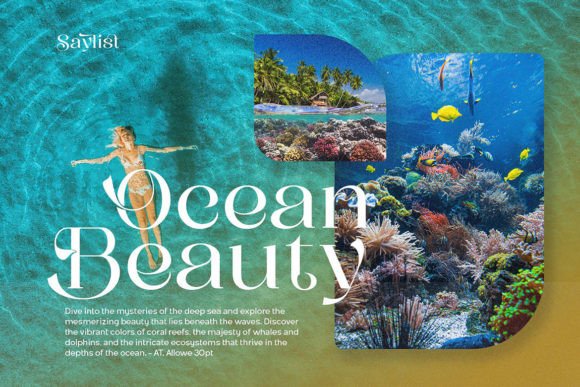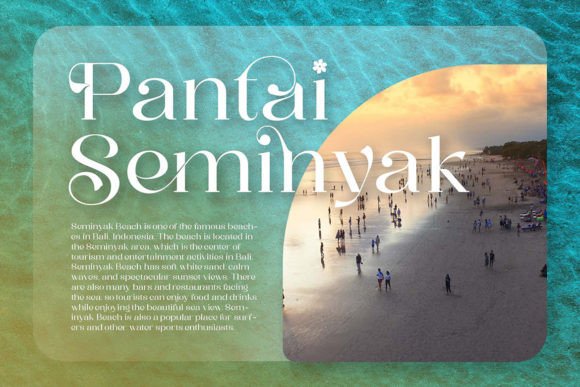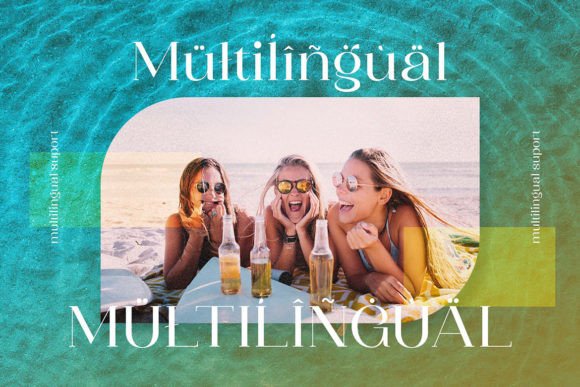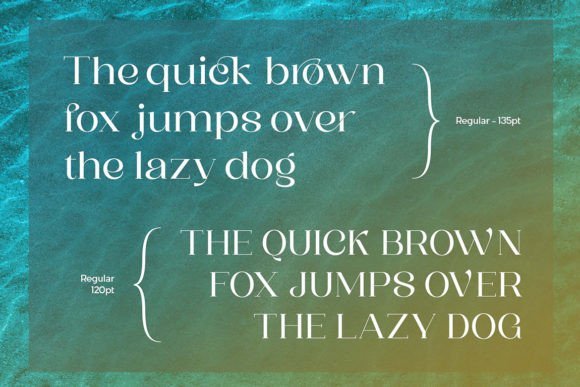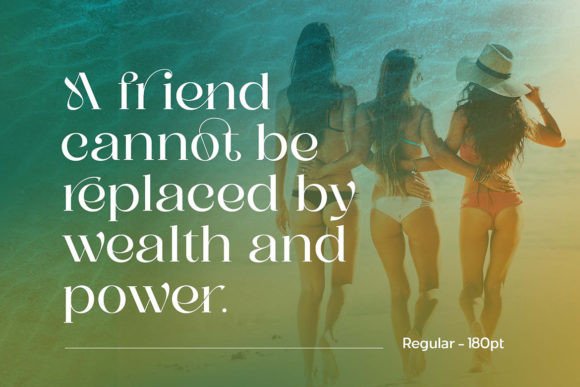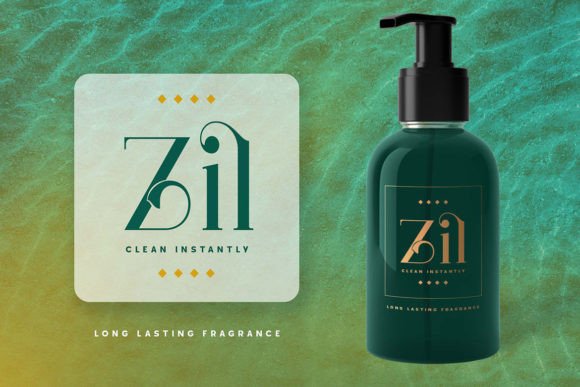
Introduction to Saylisy Font
Remember the moment when you finally find the perfect design element for your project? The one that elevates your creative vision and takes your breath away? That’s exactly what happens when you stumble upon the Saylisy Font. This stunning serif font is more than just a design resource – it’s a key to unlocking the full potential of your high-quality design projects.
With its sleek lines and elegant feel, Saylisy Font is the ultimate choice for designers who crave sophistication and luxury in their work. Whether you’re working on a logo, branding, or any other creative project, this versatile font is sure to impress. And the best part? Saylisy Font is available for free download, making it an accessible and valuable addition to your design arsenal.
Key Features of Saylisy Font
- High-quality design resource with a unique and creative style, perfect for various design projects.
- Perfect for use in creative projects, including graphic design, digital art, and typography-based designs.
Honest Review: Saylisy Font
As a designer, I’m always on the lookout for high-quality design resources that can elevate my creative projects. Recently, I stumbled upon the Saylisy Font, and I’m excited to share my honest review.
- ✨ Unique and modern design: The Saylisy Font has a distinctive style that sets it apart from other fonts.
- ✨ High-quality glyphs: The font’s glyphs are well-crafted and detailed, making it perfect for body text and headings.
- ⚠️ Limited font sizes: The Saylisy Font may not be suitable for very large or very small font sizes, as the design may become distorted.
Overall, I’m impressed with the Saylisy Font’s unique design and high-quality glyphs. While it has some limitations, it’s a great choice for designers looking for a modern and stylish font for their creative projects. Whether you’re working on a logo, brochure, or website, the Saylisy Font is definitely worth considering.
The Saylisy Font is a high-quality, unique design resource that can elevate any creative project. With its transparent background and sleek design, it’s perfect for adding a touch of sophistication to your work.
The Saylisy Font is perfect for a variety of creative projects, including graphic design, branding, and marketing materials. Its unique design and transparent background make it a versatile resource for any design need.